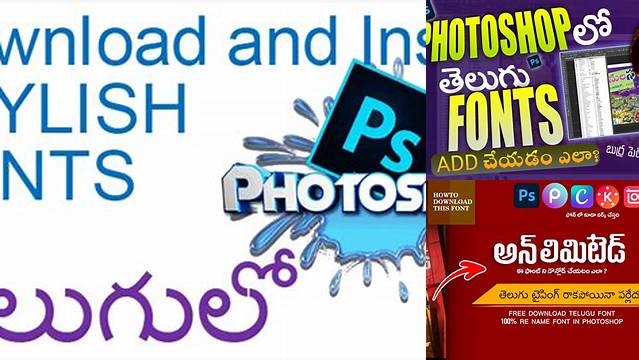
Telugu Fonts In Photoshop: A Designer's Guide
Hey guys! If you're diving into the world of digital design and want to create stunning visuals in Telugu, you've come to the right place. Using Telugu fonts in Photoshop can really bring your creative projects to life, whether you're working on posters, social media graphics, or website designs. But where do you start? What are the best fonts to use? And how do you even get them into Photoshop? Don’t worry; we’re going to cover everything you need to know.
Why Use Telugu Fonts in Photoshop?
Let's kick things off by talking about why using Telugu fonts in Photoshop is so important. Telugu, one of the Dravidian languages primarily spoken in the Indian states of Andhra Pradesh and Telangana, has a rich cultural heritage. Incorporating Telugu script into your designs not only caters to a specific audience but also adds a unique cultural touch that can resonate deeply. Imagine you're designing a poster for a local festival; using a stylish Telugu font can instantly make it more appealing and relevant to the community. Furthermore, if you're creating content for Telugu-speaking audiences, using the correct fonts ensures readability and professionalism. Think about it – would you trust a brand that uses poorly rendered or generic fonts? Probably not. High-quality Telugu fonts can elevate your designs, making them more engaging and credible. In today's globalized world, catering to diverse linguistic needs is crucial, and using Telugu fonts in your designs is a significant step towards inclusivity. Whether you’re designing wedding invitations, educational materials, or marketing campaigns, the right Telugu font can make all the difference. By using these fonts, you are not just creating visually appealing content but also honoring and preserving the Telugu language and culture. So, go ahead and explore the vast array of Telugu fonts available and start adding that special touch to your projects!
Finding the Best Telugu Fonts
Okay, so where can you actually find these amazing Telugu fonts? The internet is your best friend here. There are tons of websites offering free and premium Telugu fonts, and we're going to break down some of the best places to look. First off, Google Fonts is a fantastic resource. It's free, easy to use, and offers a variety of Telugu fonts that are perfect for both web and print projects. The fonts are open-source, meaning you can use them without worrying about licensing issues. Another great option is Font Squirrel, which also provides free, high-quality fonts with commercial licenses. For those willing to invest a bit, MyFonts and Adobe Fonts have an extensive collection of premium Telugu fonts. These fonts often come with more detailed glyphs, stylistic alternates, and better overall design quality. When searching for fonts, make sure to preview them with actual Telugu text to ensure they render correctly. Some fonts might look good in the Latin alphabet but fall short when displaying Telugu characters. Also, consider the type of project you're working on. A formal document might require a more traditional and readable font, while a creative poster could benefit from a bolder, more stylized option. Don’t be afraid to experiment and try out different fonts until you find the perfect match for your design. Remember to check the font's license before using it, especially for commercial projects. By exploring these resources and keeping these tips in mind, you'll be well on your way to finding the best Telugu fonts for your needs. Happy font hunting!
Installing Telugu Fonts in Photoshop
Using Telugu Fonts Effectively in Photoshop
So, you've got your Telugu fonts installed, and you're ready to roll. But how do you use them effectively in Photoshop? It's not just about slapping some text on a canvas; it's about making sure your Telugu text looks professional and is easy to read. First off, consider the context of your design. Is it a formal invitation, a promotional banner, or a social media post? The font you choose should match the tone and purpose of the design. For formal documents, stick to clean and readable fonts like Noto Sans Telugu or Lohit Telugu. These fonts are designed for clarity and legibility, making them perfect for body text. For more creative projects, you can experiment with bolder and more stylized fonts. Just make sure they don't sacrifice readability for aesthetics. Pay attention to kerning and tracking. Kerning adjusts the spacing between individual letters, while tracking adjusts the spacing across an entire block of text. Adjusting these settings can significantly improve the readability of your Telugu text. In Photoshop, you can find these options in the Character panel (Window > Character). Also, be mindful of the font size. Telugu script can sometimes appear smaller than Latin script, so you might need to increase the font size to make it more legible. Use a contrasting color for your text to ensure it stands out against the background. A dark font on a light background or vice versa usually works best. Don’t be afraid to experiment with different font styles and effects, but always prioritize readability. By keeping these tips in mind, you'll be able to use Telugu fonts effectively in Photoshop and create stunning designs that truly stand out.
Even with the best preparation, you might run into some issues when working with Telugu fonts in Photoshop. Don't worry; we've got you covered! One common problem is incorrect rendering. Sometimes, Telugu characters might not display correctly, appearing as boxes or garbled symbols. This can happen if the font is not fully compatible with Photoshop or if there's a problem with your system's font rendering. To fix this, make sure you're using a Unicode-compliant font. Unicode is a universal character encoding standard that ensures consistent display of text across different platforms and applications. Also, check your Photoshop settings to ensure that the text engine is set to "World-Ready Layout". You can find this option in Edit > Preferences > Type. Another issue you might encounter is fonts not appearing in the font list. As mentioned earlier, restarting Photoshop or clearing the font cache can often resolve this. If that doesn't work, try reinstalling the font. Make sure you have the latest version of Photoshop installed. Older versions might have compatibility issues with newer fonts. Sometimes, the problem might be with the font file itself. If you downloaded the font from a questionable source, it might be corrupted. Try downloading the font from a reputable website like Google Fonts or Adobe Fonts. If you're still having trouble, consider reaching out to the font designer or community forums for help. They might have specific solutions for the font you're using. By troubleshooting these common issues, you'll be able to overcome any challenges and enjoy using Telugu fonts in Photoshop without any headaches.
Using Telugu fonts in Photoshop opens up a world of creative possibilities. From enhancing cultural relevance to improving communication with Telugu-speaking audiences, the right font can make a significant impact. By following this guide, you'll be well-equipped to find, install, and use Telugu fonts effectively in your designs. So go ahead, experiment, and let your creativity flow! Whether you're designing for personal projects or professional assignments, incorporating Telugu fonts will add a unique and meaningful touch to your work. Happy designing, guys! And remember, the key is to practice and explore different fonts to find what works best for you. Embrace the beauty of the Telugu script and let it shine in your creations!